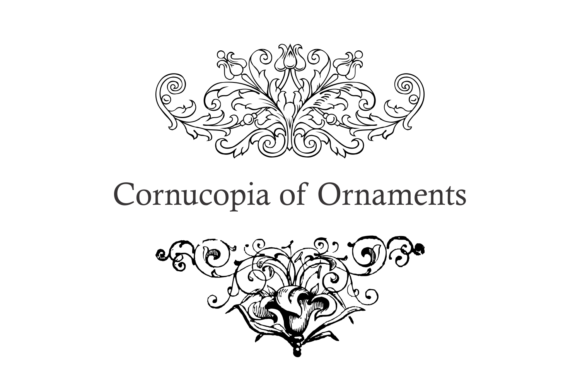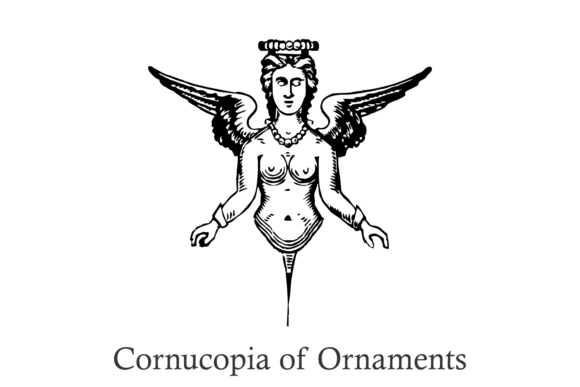
Cornucopia of Ornaments Font
About Cornucopia of Ornaments Font
Cornucopia is a versatile collection of vintage ornaments that can be used for various design purposes. This font features a wide range of decorative elements inspired by different artistic styles and eras, such as Art Nouveau, Victorian, and Art Deco.
With Cornucopia, you have access to an extensive selection of ornamental shapes, flourishes, frames, borders, and embellishments. These elements can be used to enhance your designs, add a touch of elegance, or create intricate patterns and compositions.
The vintage aesthetic of Cornucopia makes it particularly well-suited for projects that require a classic or nostalgic look. It can be used in various design applications, including typography, logos, packaging, invitations, stationery, book covers, and more.
To make the most of Cornucopia, consider experimenting with different combinations and layering techniques. Mix and match the ornaments to create unique arrangements and layouts that suit your design concept. You can also customize the color, size, and rotation of the ornaments to achieve the desired visual effect.
When using Cornucopia, it’s important to be mindful of the overall design balance and legibility. While the ornaments can add decorative flair, make sure they don’t overwhelm the main content or compromise readability.
Whether you’re working on a vintage-inspired project, a formal invitation, or a sophisticated branding design, Cornucopia offers a wealth of ornamental options to elevate your creations and give them a timeless appeal.